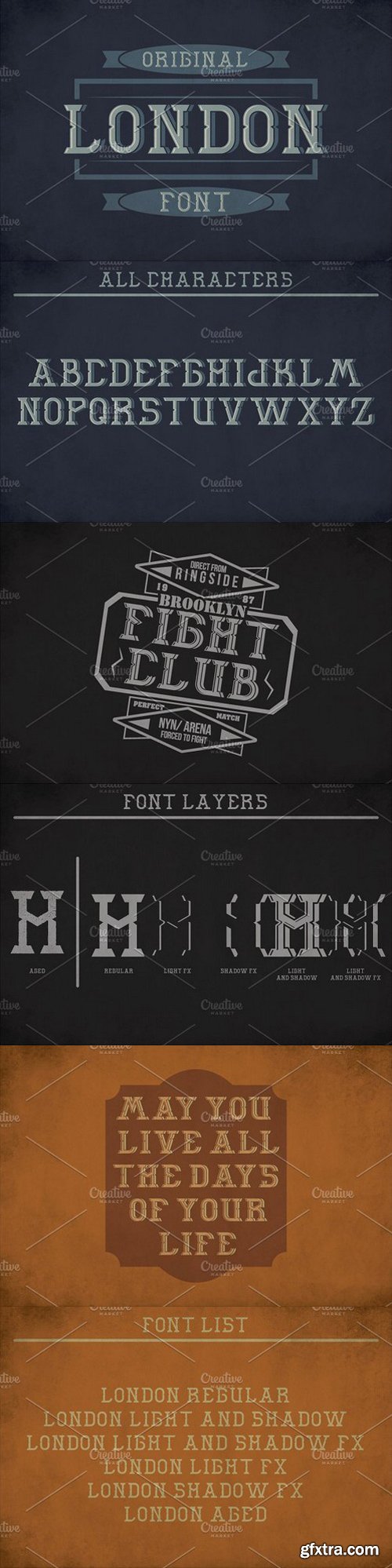
London Label Typeface
Introducing a vintage look label typeface named "London". It's made in strong and vintage label style. Typeface is good viewed on any labels design.
Features:
- 5 fonts in complect (with special effects), plus aged version
- You can mix effects (look at 4-th screenshot)